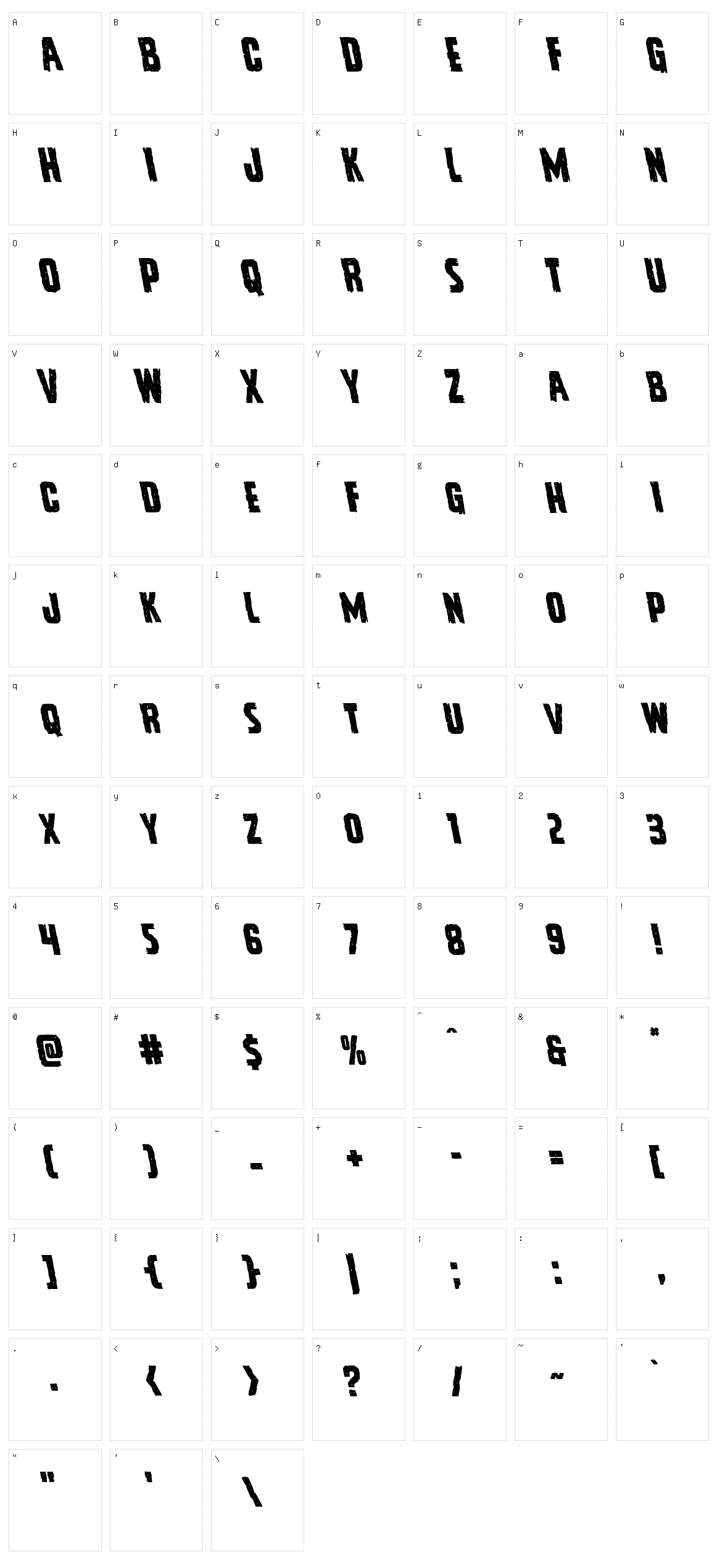
The free font Vicious Hunger is carefully designed by Iconian Fonts, showcasing a thoughtful balance of creativity and usability and falls under the Horror font style. When you download the ZIP file, it contains only 1035.68 KB of font files, making it lightweight and quick to download. Please review the license details below to understand permitted usage and distribution rights. If license information is not available, we recommend using this font for personal projects only or contacting the author directly for commercial usage permissions.
This font comes with the following 13 versions: Regular, Italic, Condensed, Condensed Italic, Expanded, Expanded Italic, 3D, 3D Italic, Rotated, Rotalic, Leftalic, Staggered and Staggered Italic.